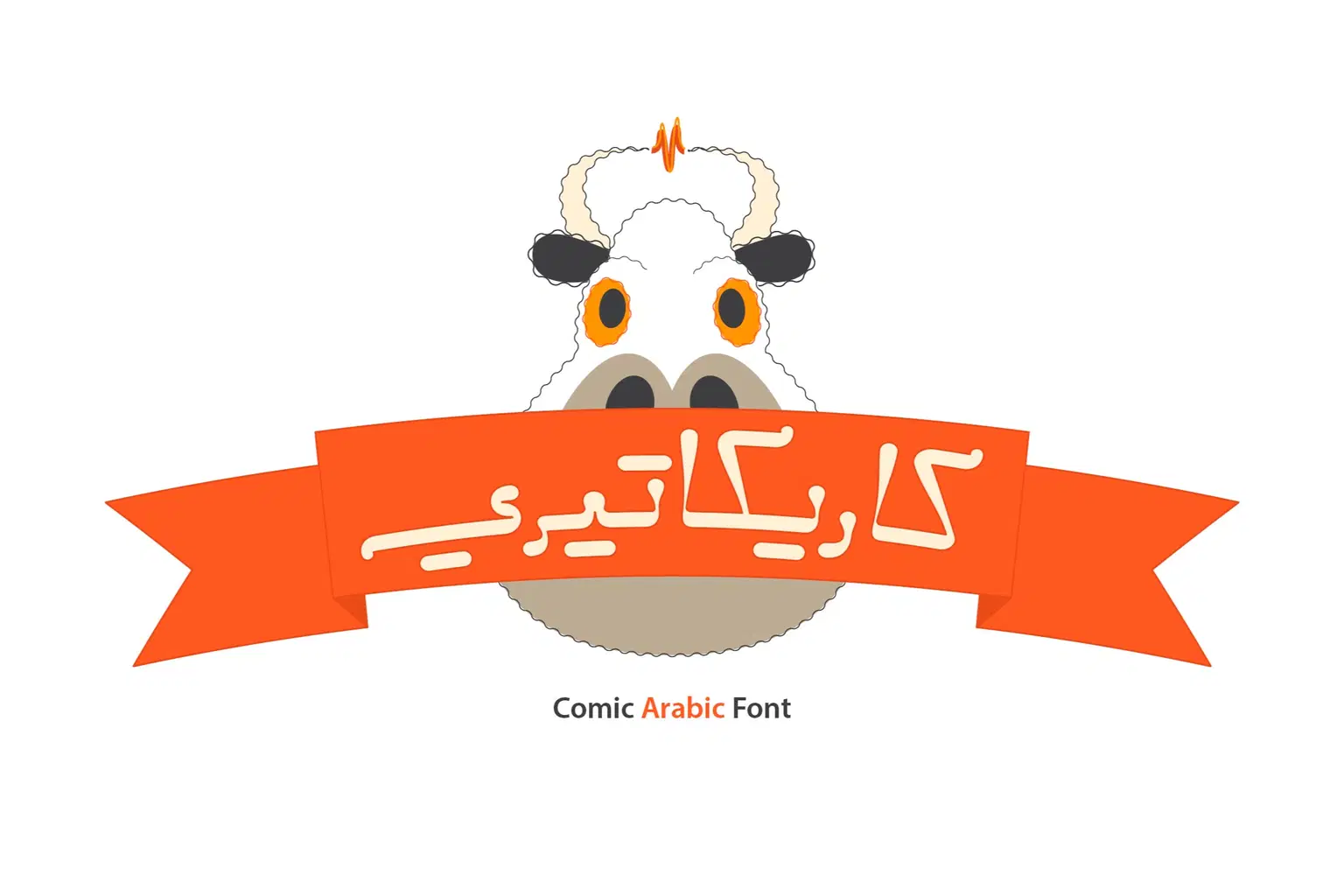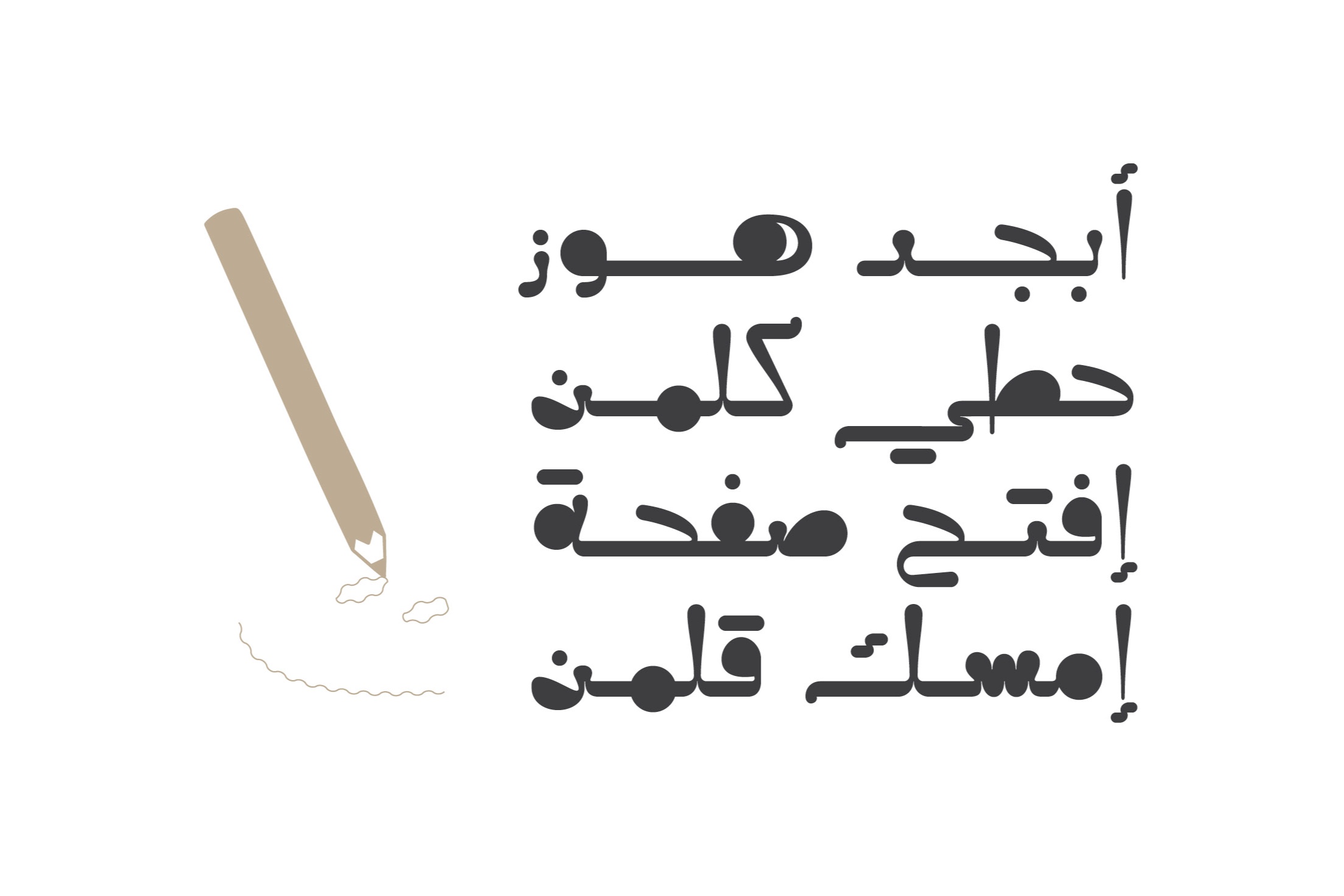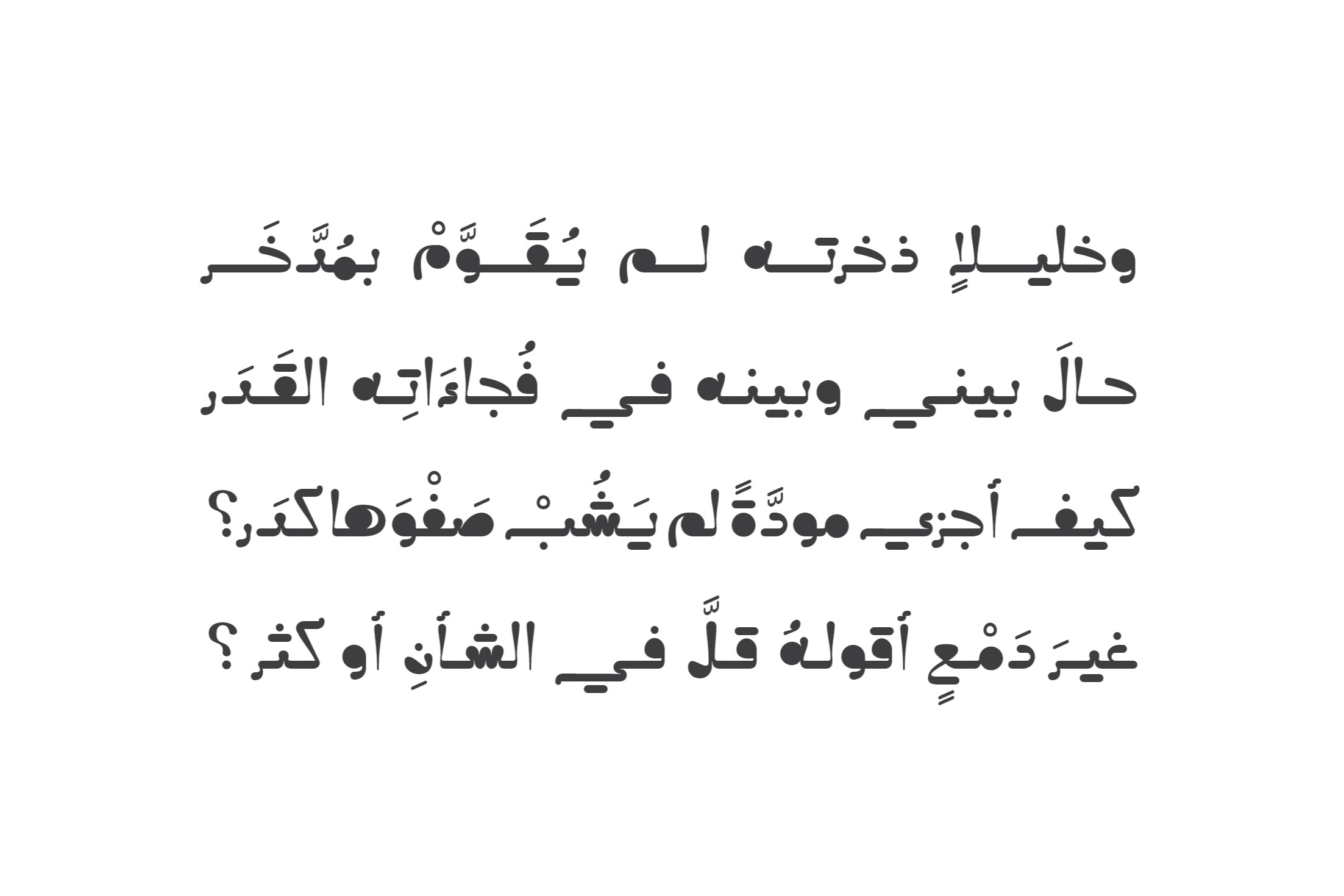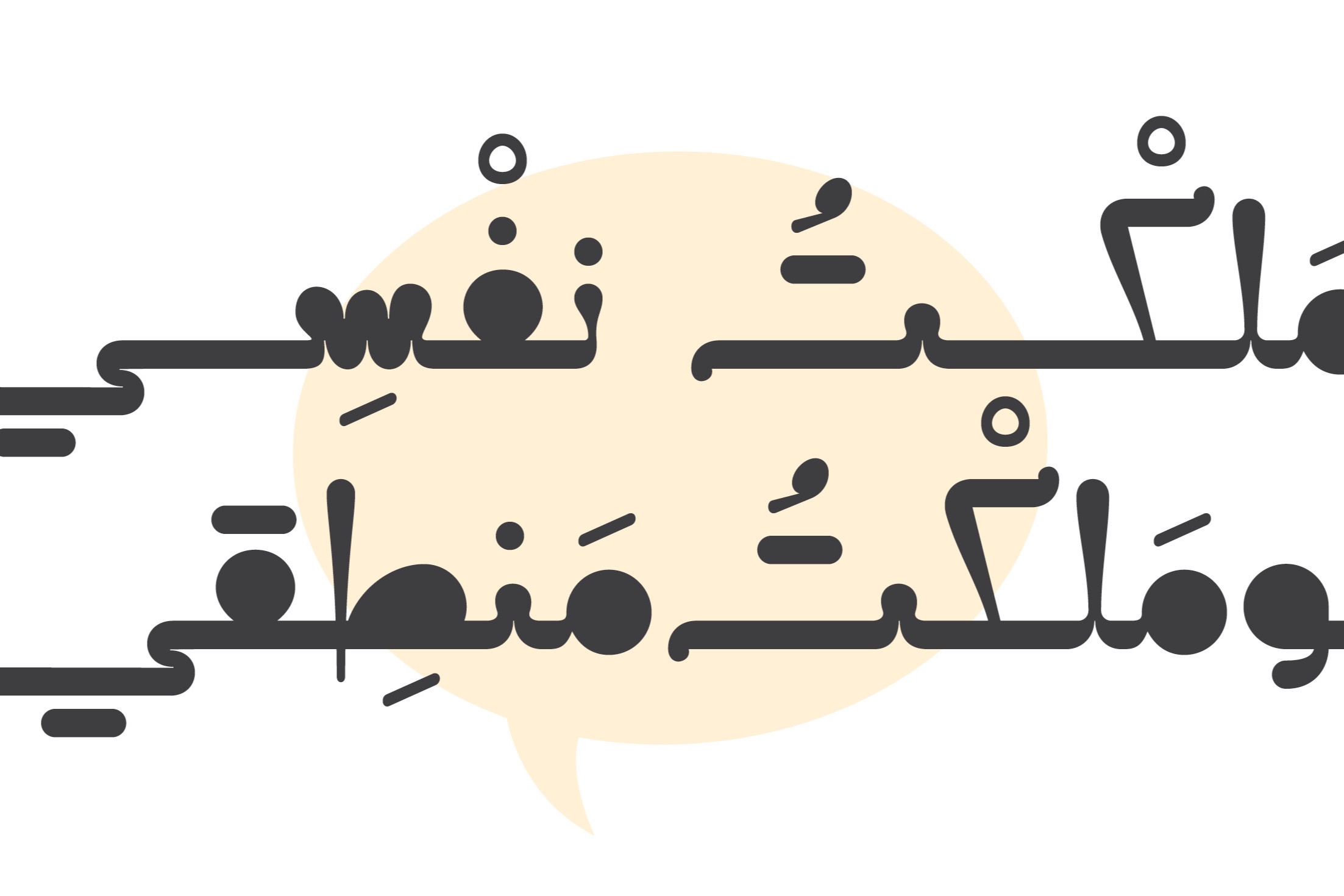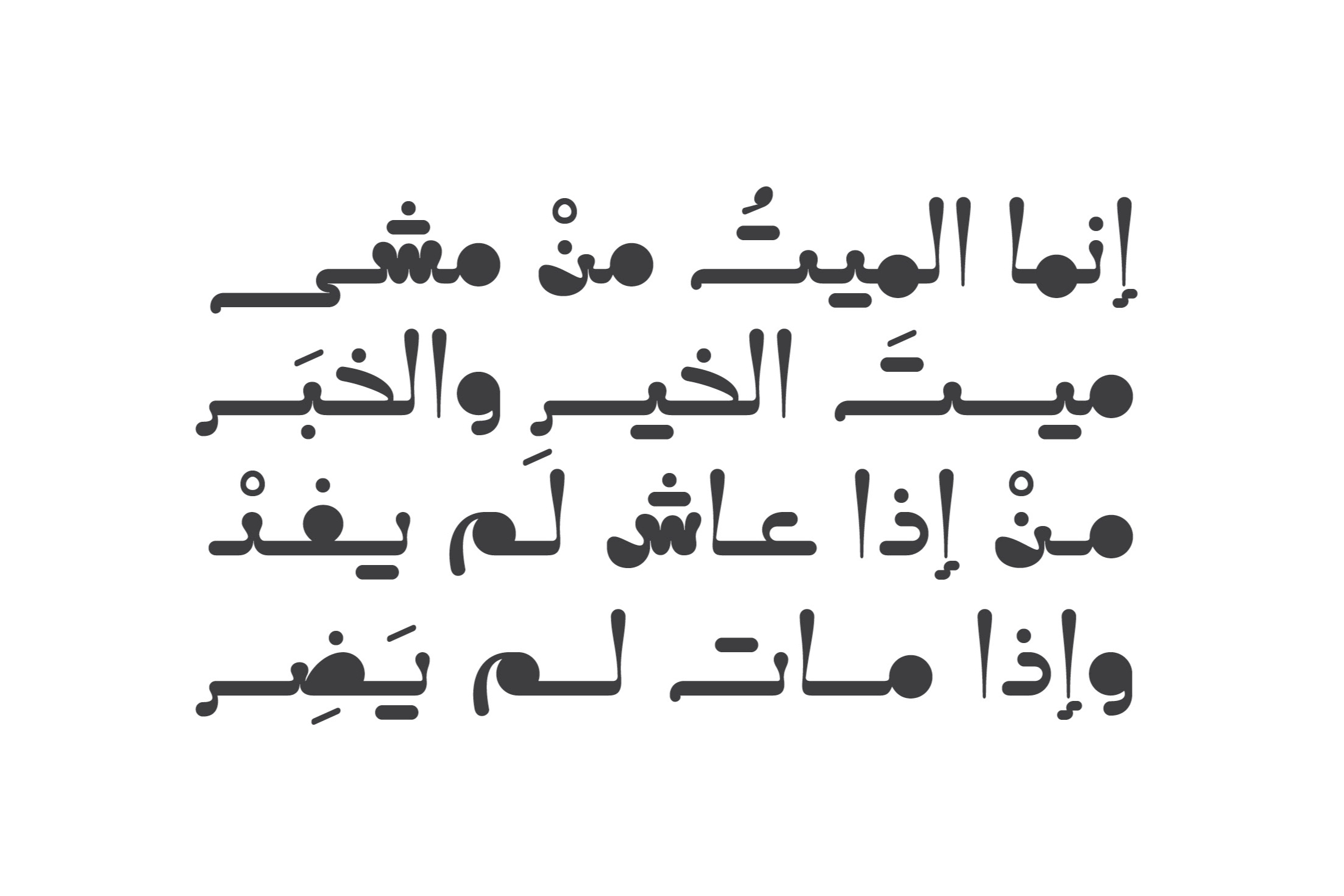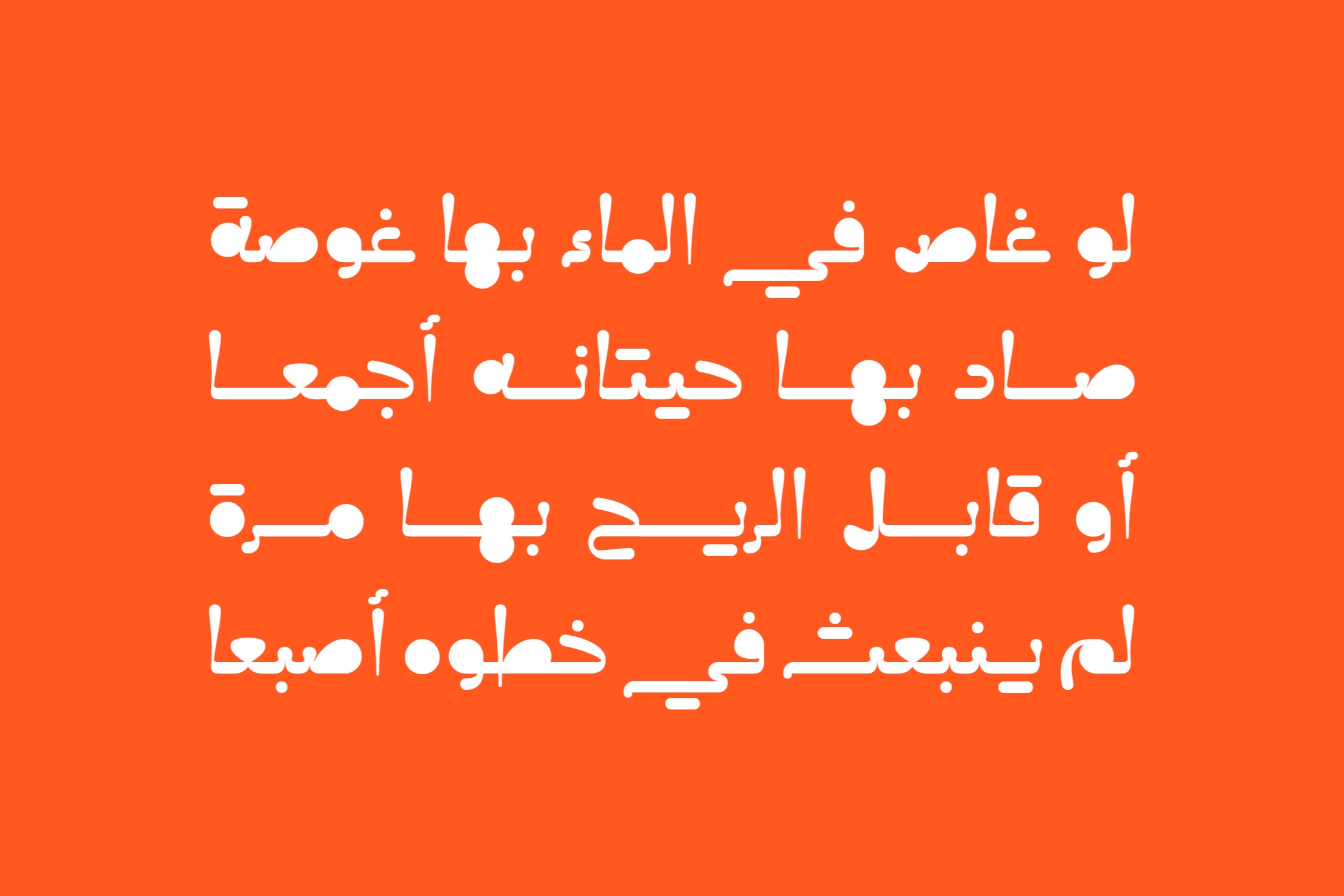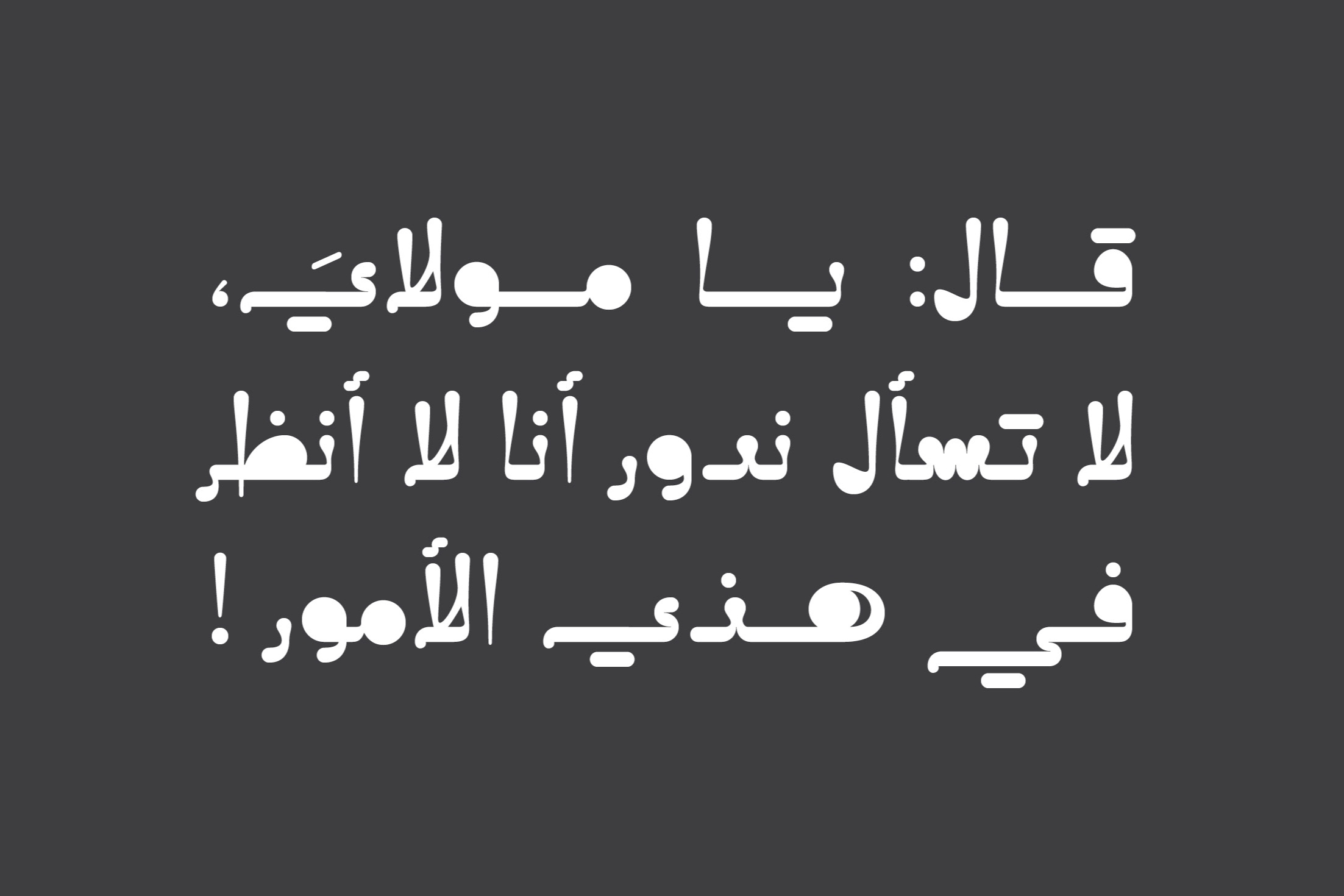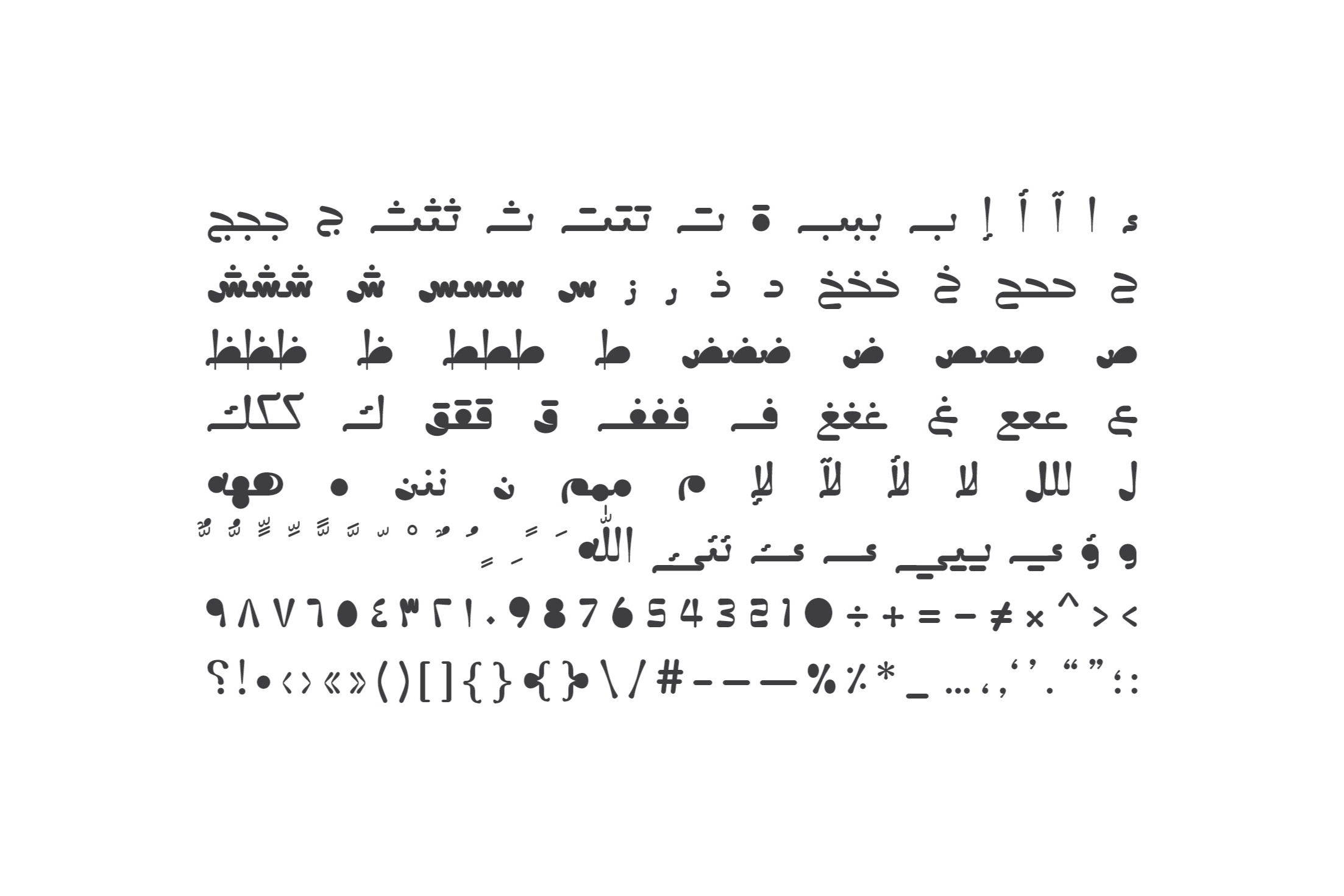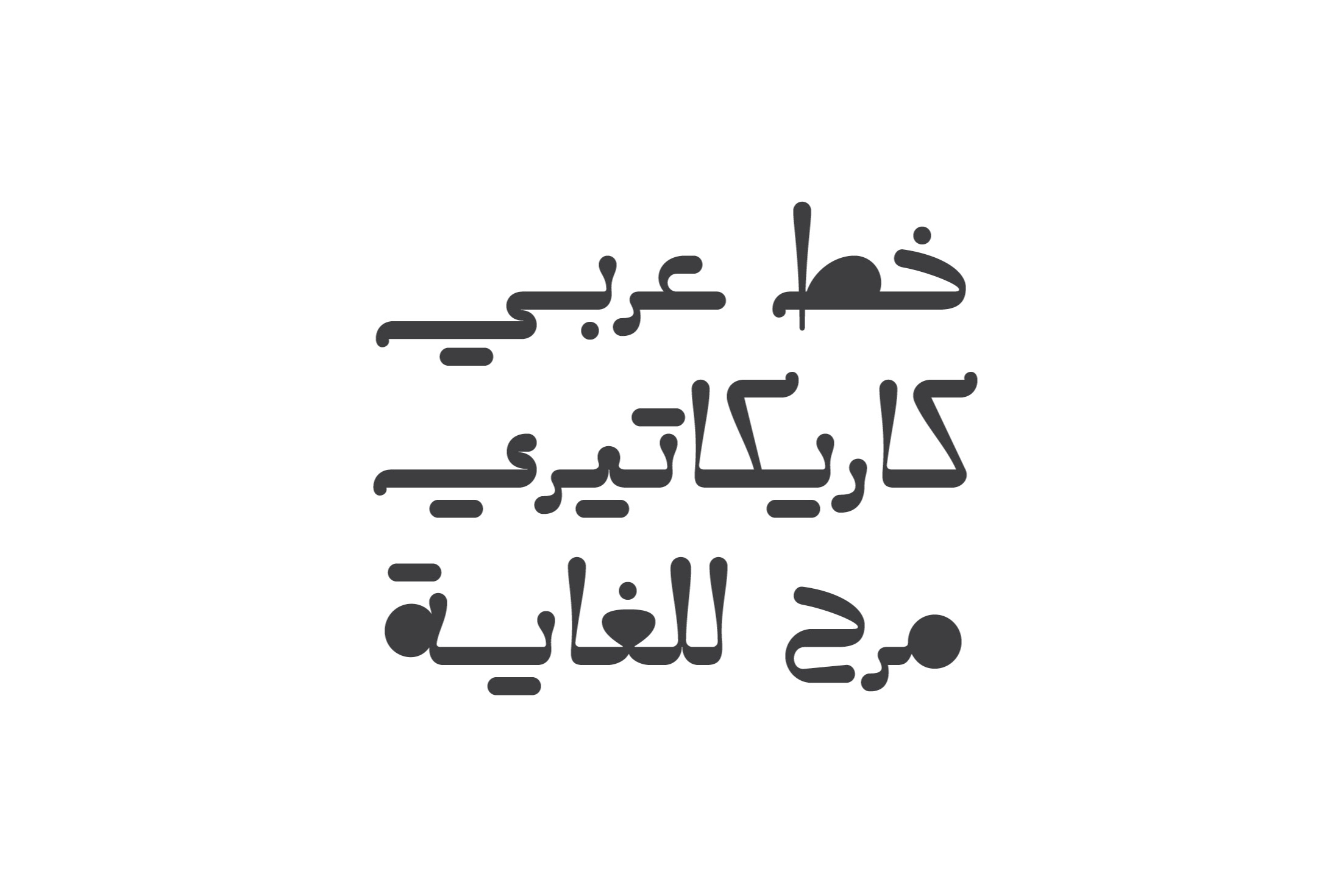
Caricaturey is an Arabic display font featuring a humorous letterform design. It aims to simulate the uneven ink flow effect that evokes a caricature-like style. Caricaturey is an excellent companion for comics, caricature drawings, and a variety of other design projects.